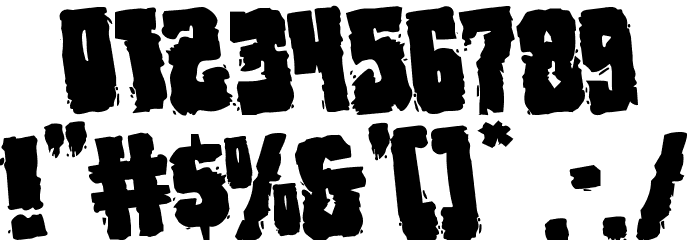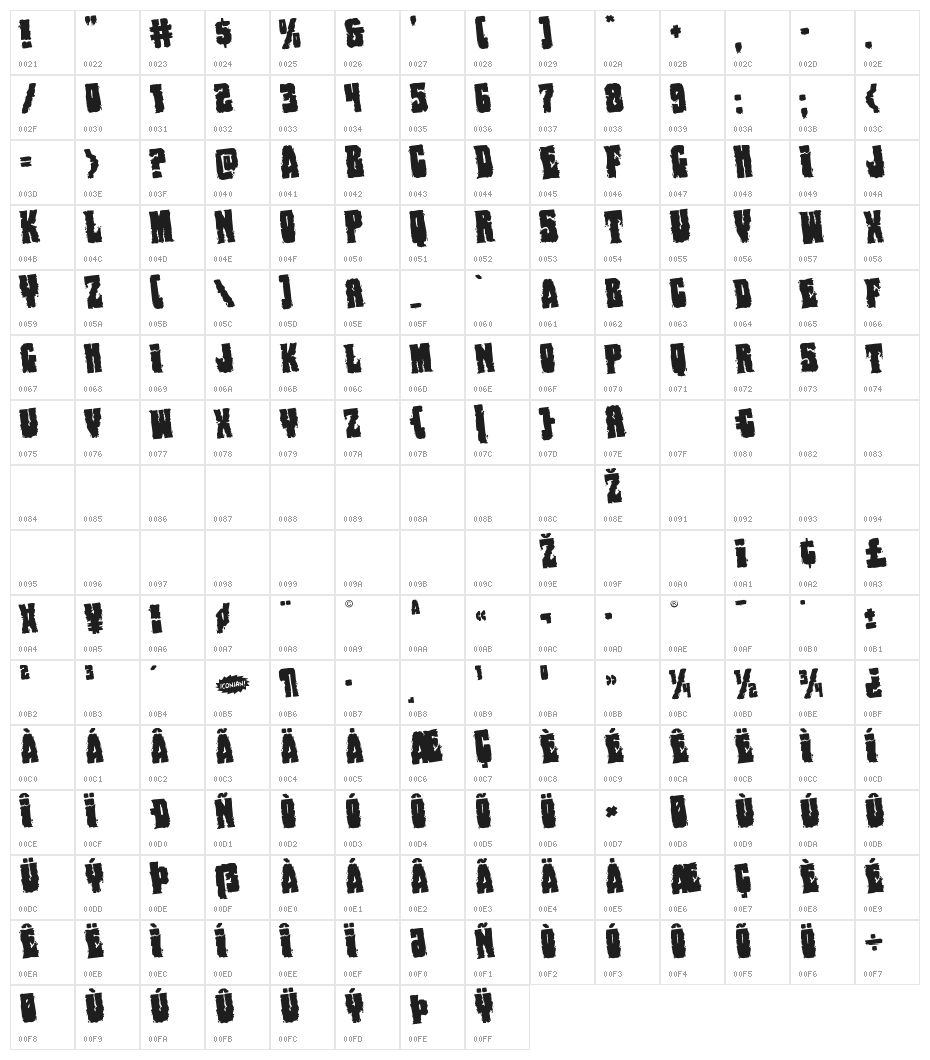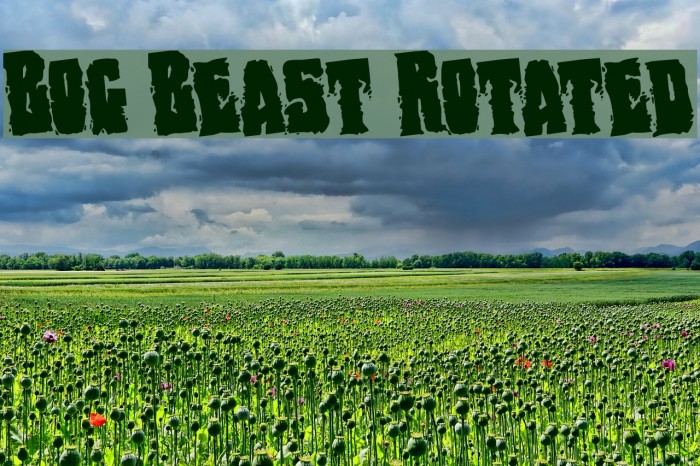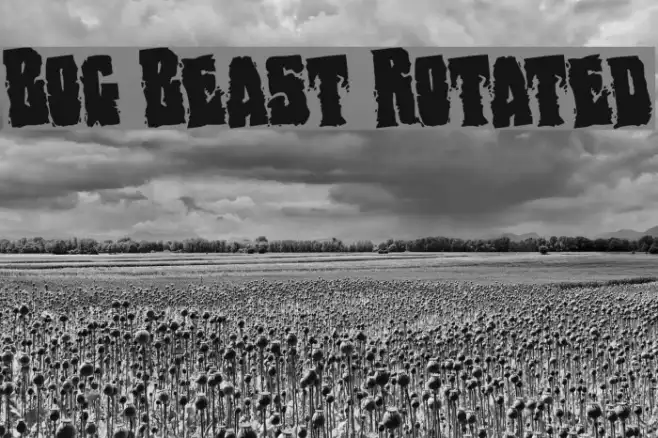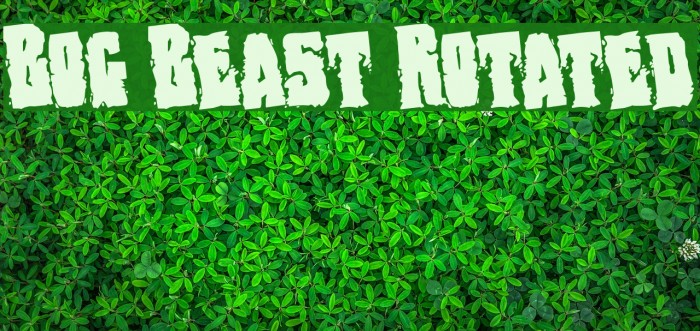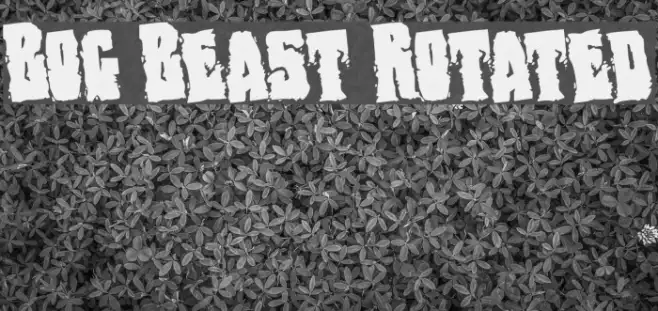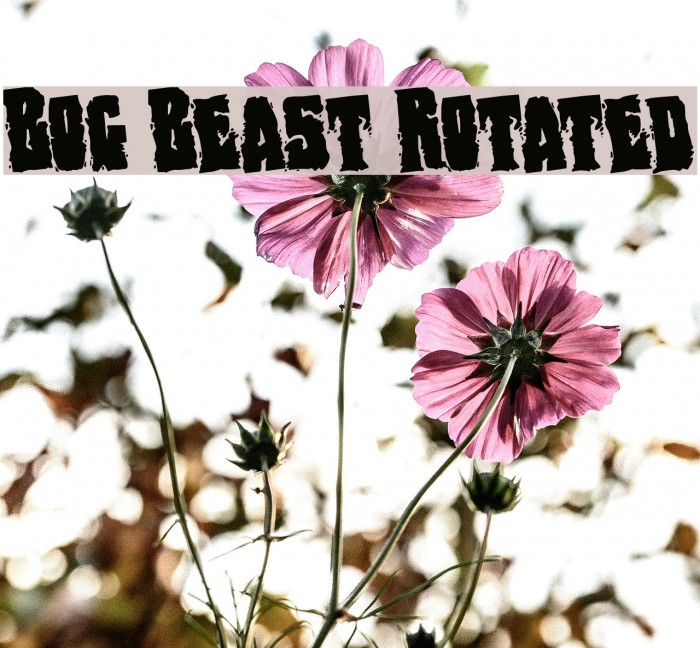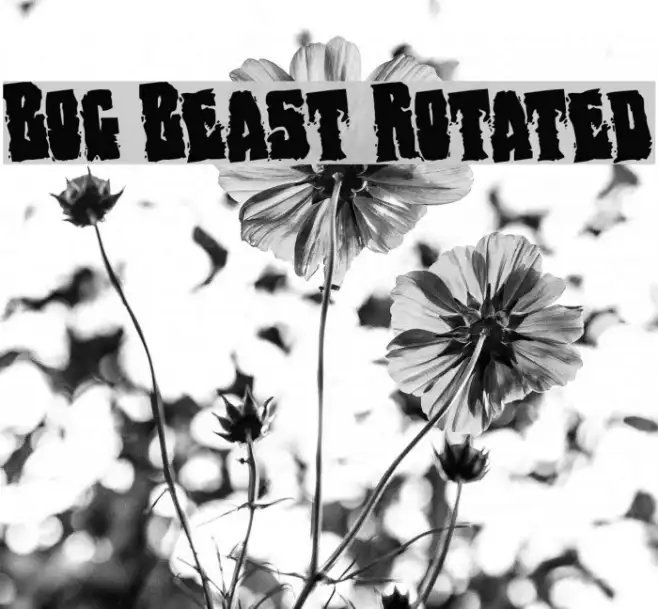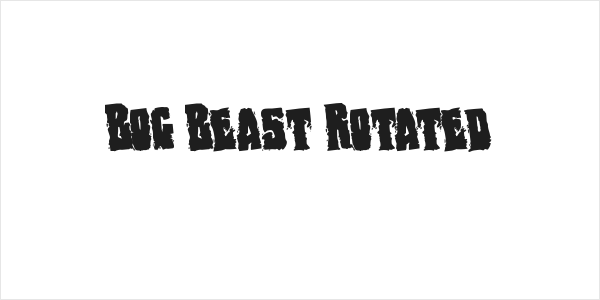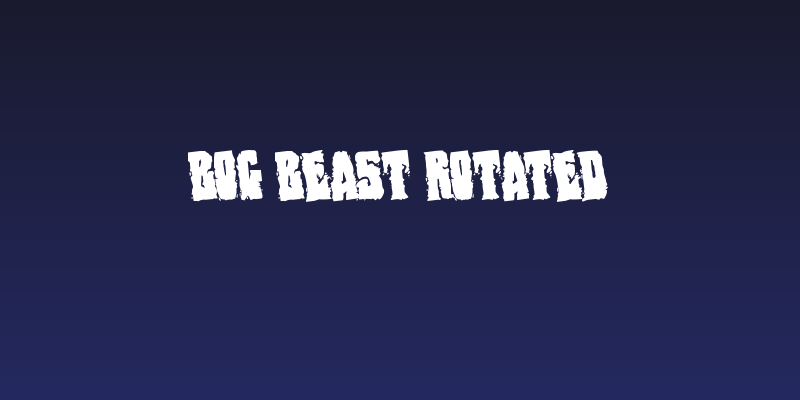
Bog Beast Rotated Font
Bog Beast Rotated Description
This font features a rugged, distressed appearance with uneven edges and a bold, impactful presence. Each character appears as if it has been eroded or weathered, giving it a raw and organic feel. The uppercase and lowercase letters maintain a consistent style, with a heavy weight that emphasizes their boldness. The numbers and special characters follow the same distressed aesthetic, ensuring uniformity across all elements. This font's unique texture and boldness make it stand out, ideal for designs that require a strong visual impact.
| Proposed Projects | Ideal for horror-themed posters, edgy branding, album covers, and Halloween event promotions. |